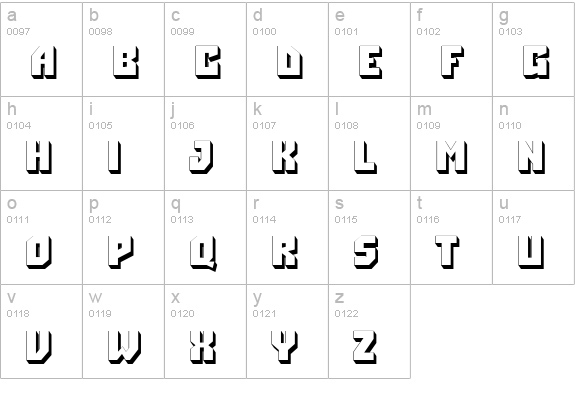
a_SimplerE3D Font Details
Introducing SimplerE3D font - a sleek and modern typeface that is perfect for adding a touch of sophistication to your designs. With its clean lines and elegant curves, this font is versatile enough to be used in a variety of projects, from branding to web design to print materials. SimplerE3D is a free font that is both stylish and easy to read, making it ideal for both headings and body text. Its contemporary design sets it apart from other fonts, giving your projects a polished and professional look. This font is freely available to download at FontsMarket.com, allowing you to easily incorporate it into your design arsenal without breaking the bank. Whether you're a seasoned designer looking to freshen up your typography or a newcomer looking for a high-quality font to start with, SimplerE3D is sure to impress. Elevate your designs with this elegant and versatile font today!